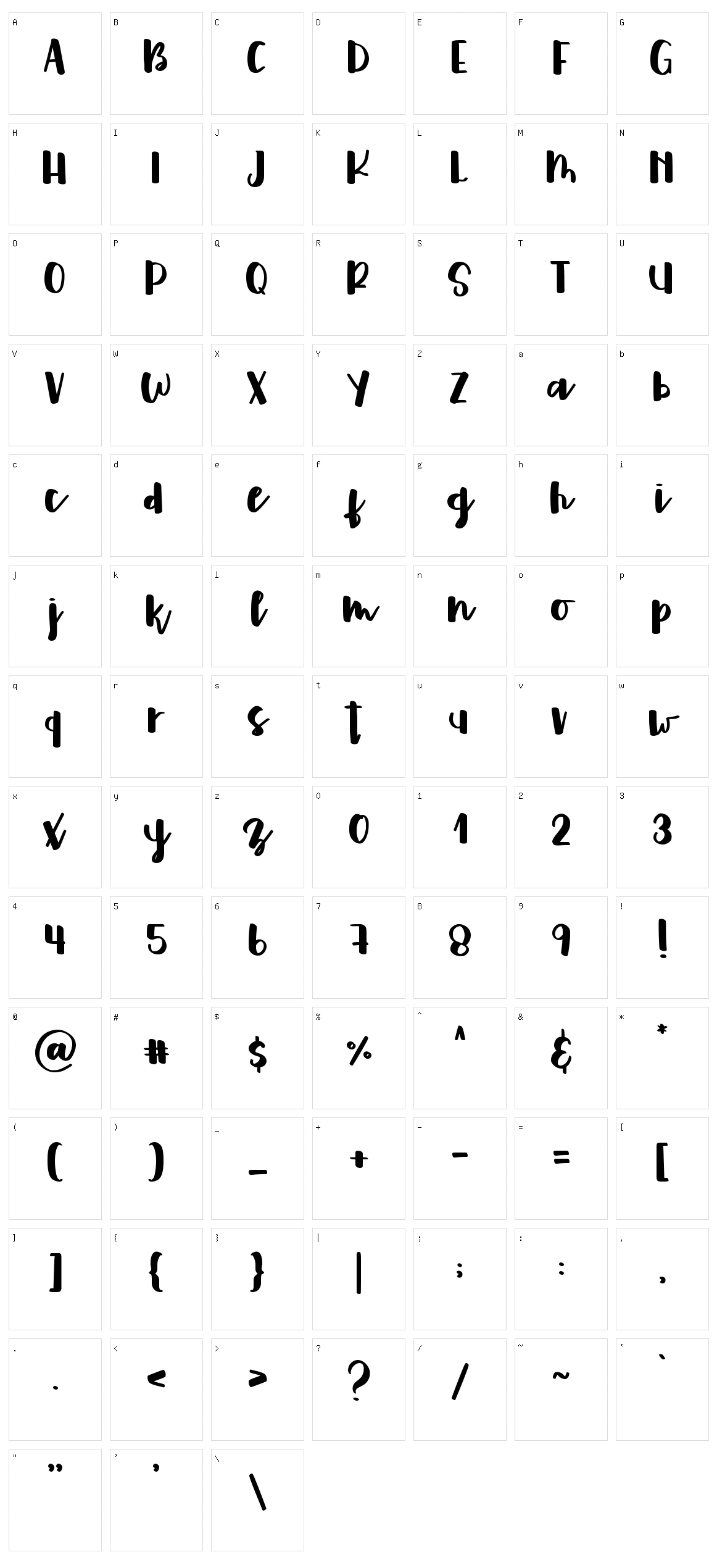
The free font Fostella is carefully designed by Abo Daniel Studio, showcasing a thoughtful balance of creativity and usability and falls under the Script font style. When you download the ZIP file, it contains only 716.41 KB of font files, making it lightweight and quick to download. Please review the license details below to understand permitted usage and distribution rights. If license information is not available, we recommend using this font for personal projects only or contacting the author directly for commercial usage permissions.
FOSTELLA